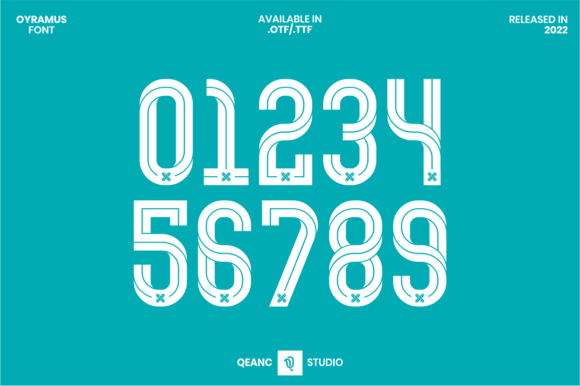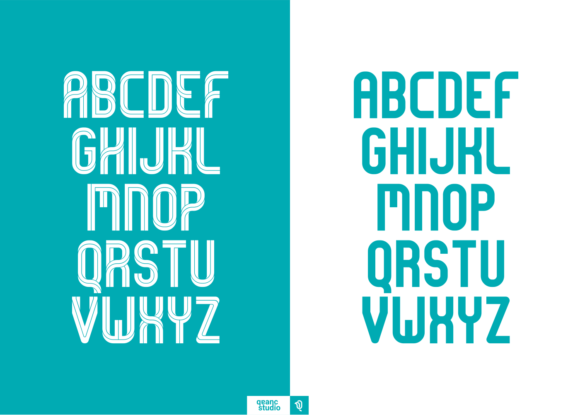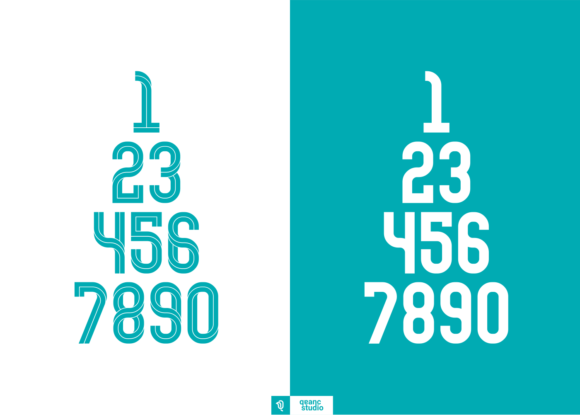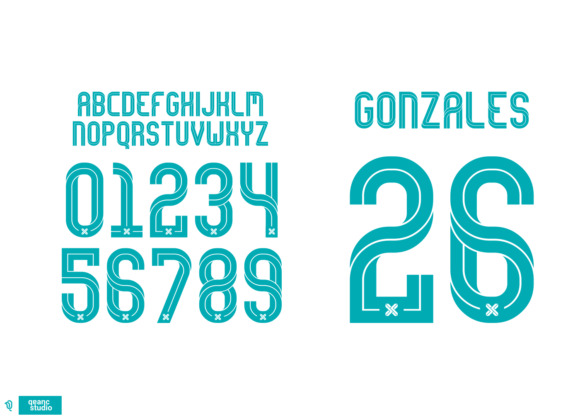
Oyramus Font: A Bold Display Font for Sport Logos & Creative Projects
About the Oyramus Font
Presenting Oyramus Font, a unique and stylish typeface that will make your work stand out. Oyramus is a cool and modern display inspired by football. It is the perfect font for any sport or racing-themed projects, such as logos, posters, t-shirts, and much more. Add this font to your creative ideas and notice how it will make them stand out!
Oyramus’s bold, energetic forms make it ideal for headlines, short impactful statements, and logos requiring a strong visual presence. It excels in posters, packaging for sports-related products, and even branding for companies aiming for a dynamic, modern image. Avoid using it for body text or lengthy paragraphs; its high contrast and strong strokes are not conducive to readability in extended use.
Consider pairing Oyramus with a clean sans-serif like Open Sans for a balanced contrast, particularly effective when using Oyramus for headlines and Open Sans for supporting text. Alternatively, a more playful script like Pacifico can complement its sporty feel, while a geometric sans-serif like Montserrat offers a more modern and sophisticated combination. The key is maintaining a visual harmony; the strong character of Oyramus benefits from simpler, more neutral companions.
Ultimately, Oyramus projects a powerful, masculine, and undeniably sporty personality. Its design speaks to action, speed, and competition, making it the perfect visual voice for brands and projects seeking to convey similar energy.